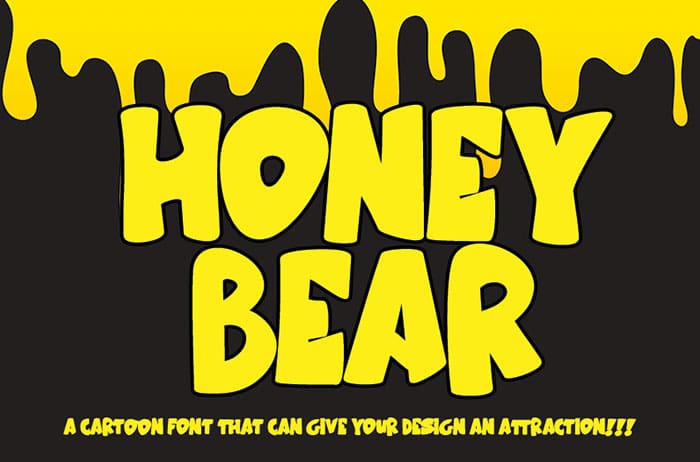
Honey Bear Display Font
Honey bear display font is inspired by cartoons and features an incredibly fun and cute feel! Get inspired by its childlike charm. Created this font by Thomas Aradea. You can also search more freeĀ Display Fonts. Thanks!